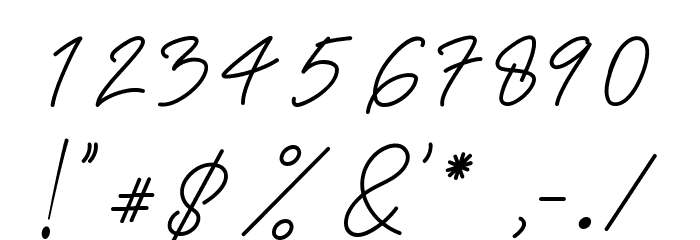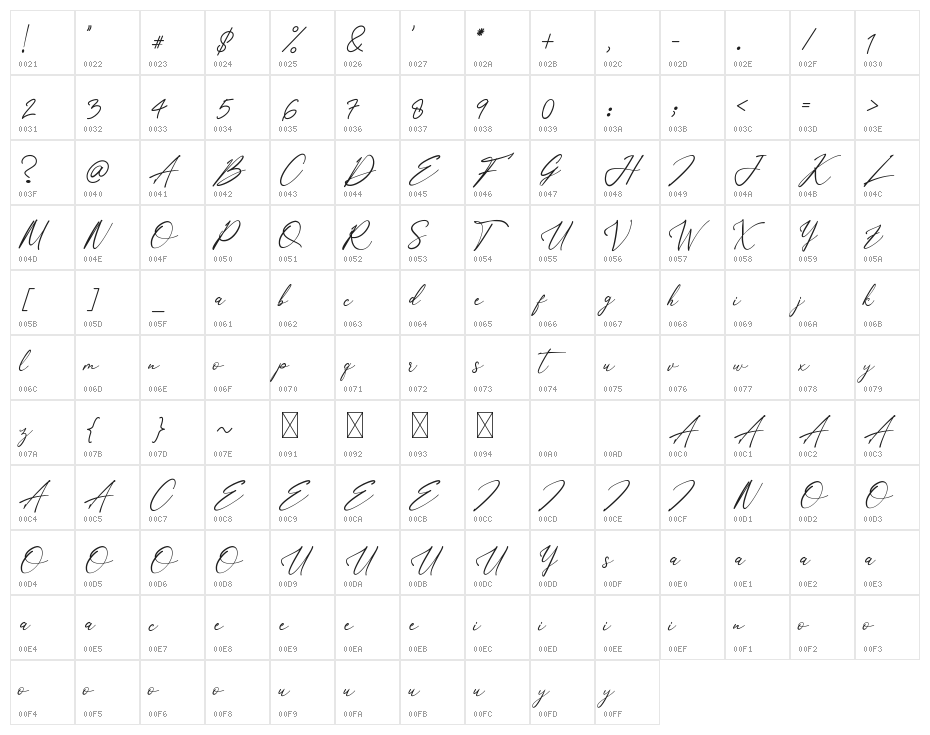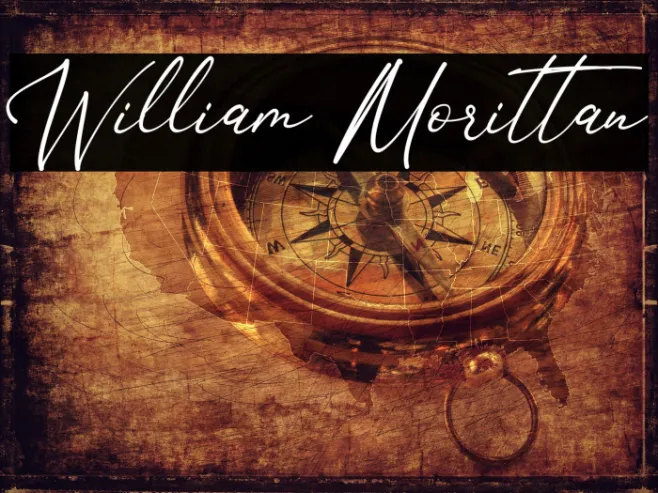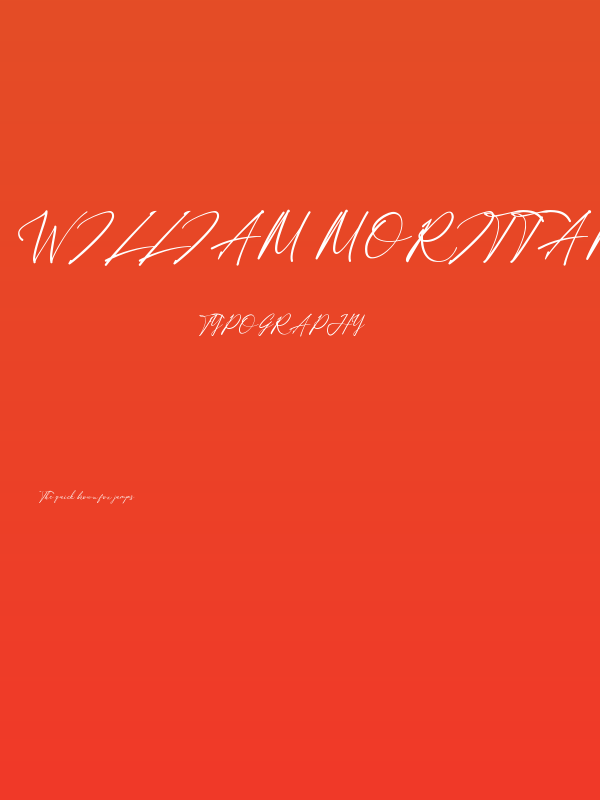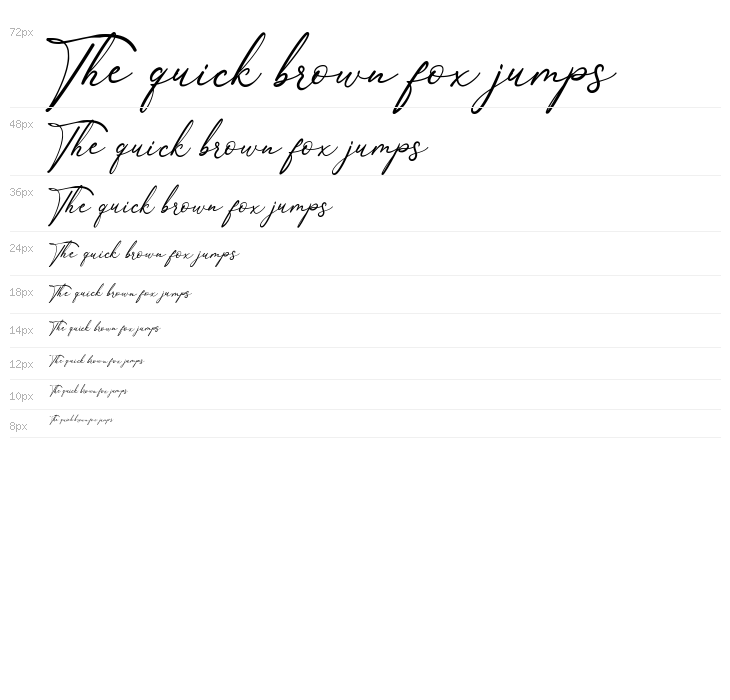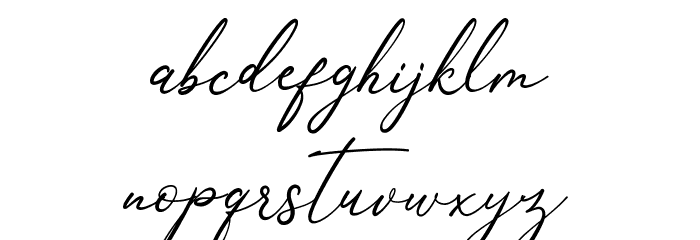
William Morittan Font
William Morittan Description
This font features an elegant and flowing script style, characterized by its smooth, cursive strokes and a handwritten appearance. The uppercase letters are bold and dynamic, with a slight slant that adds a sense of movement and grace. The lowercase letters maintain a consistent flow, enhancing readability while preserving the artistic flair. Numbers and special characters are designed to complement the overall aesthetic, with a harmonious balance between form and function. This font exudes a sense of sophistication and creativity, making it ideal for projects that require a personal touch.